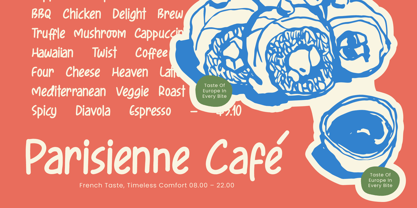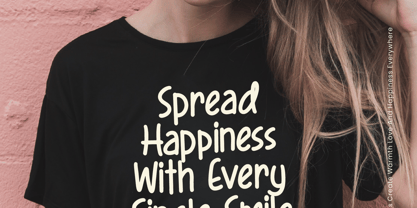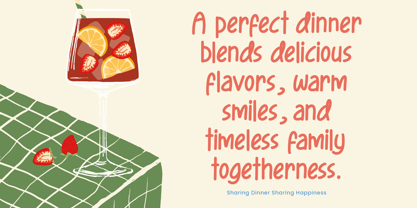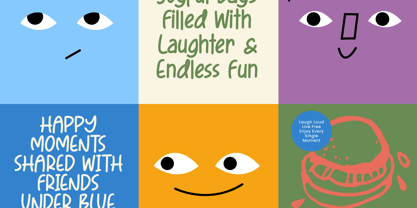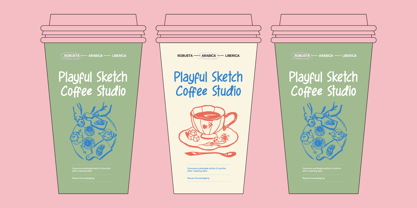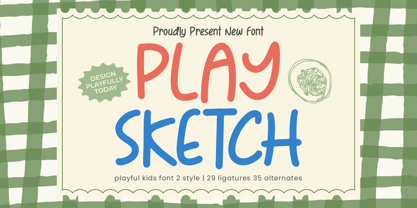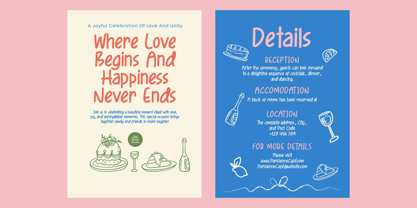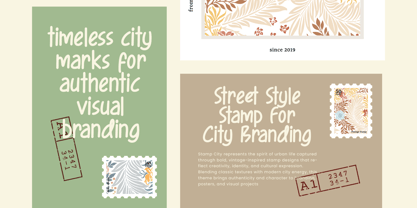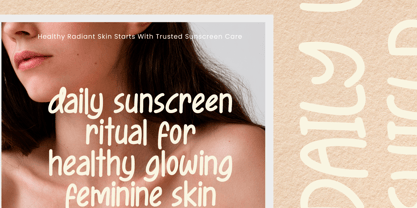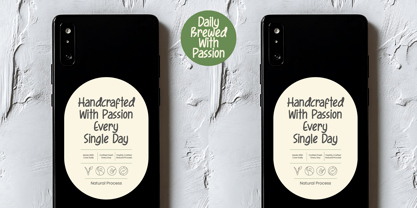
Play Sketch
by Letterena Studios
The Play Sketch Font Family was designed by Heru Utama Putra and published by Letterena Studios. Play Sketch contains 2 styles and family package options. More about this family
Play Sketch is a playful kids display font designed with rounded shapes, soft curves, and a cheerful handwritten style that feels fun, friendly, and full of personality. The letterforms are bold yet smooth, creating a lively rhythm that makes text feel approachable and expressive without losing clarity. With 2 styles, 29 ligatures, and 35 alternates, Play Sketch offers flexible character variations to keep your typography dynamic and engaging. This font is perfect for children’s books, school projects, toy packaging, educational materials, posters, branding, social media graphics, and playful merchandise. Designed for both print and digital use, Play Sketch delivers a joyful and creative tone, making it an ideal choice for designers who want a cute, energetic, and kid-friendly typeface.